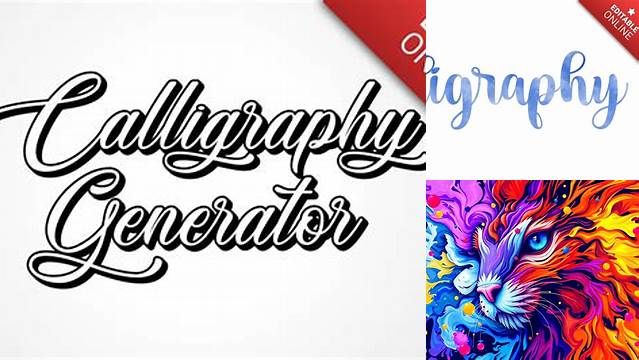
Free AI Calligraphy Font Generators: Your Guide
AI Calligraphy Font Generator Free: Unleash Your Inner Artist
Hey guys, are you ready to dive into the awesome world of AI calligraphy font generators? If you're anything like me, you probably love the elegance and artistry of calligraphy but maybe lack the skills or time to master it. Well, guess what? We're in luck! With the magic of artificial intelligence, you can now create stunning calligraphy fonts without years of practice. And the best part? There are some fantastic AI calligraphy font generators available for free! This guide will explore these tools, show you how to use them, and give you some tips to create truly unique and personalized fonts. We will cover a lot of things. We are talking about everything from the core concepts behind these tools to how to use them and also the best free options out there and how to generate the perfect font! Let's get started, shall we?
So, what exactly is an AI calligraphy font generator? Basically, it's a software program that uses artificial intelligence to design and generate calligraphy fonts. These programs are trained on vast datasets of existing calligraphy styles, allowing them to understand the nuances of different scripts and reproduce them in new and exciting ways. You provide the input – a word, a phrase, or even just a few letters – and the AI generates a font based on your specifications. It's like having a digital calligraphy artist at your fingertips! The level of customization varies, but many generators allow you to adjust parameters like stroke thickness, letter spacing, and style, giving you complete control over the final result. These are perfect for both beginners and seasoned designers, so don't be scared to try them. The possibilities are endless. You can create fonts for your personal projects, design unique logos, or even use them for commercial purposes. It's all about unleashing your creativity and exploring the potential of this amazing technology. This is a game changer, you guys!
One of the coolest things about AI calligraphy font generators is how accessible they are. Unlike traditional calligraphy, which requires specialized tools and a significant time commitment to develop the skills, these tools are user-friendly and don't require any prior experience. Most of them have intuitive interfaces, and the generation process is usually just a matter of entering text, selecting a style, and adjusting a few settings. This means anyone can start creating beautiful calligraphy fonts, regardless of their artistic background. Imagine being able to design custom fonts for your social media posts, invitations, or website without spending hours learning calligraphy techniques. Plus, the free options provide a great starting point for experimentation. You can try out different styles, experiment with various parameters, and see what kind of fonts you can create without spending a dime. This is perfect for anyone on a budget or simply curious about exploring the world of AI-generated calligraphy. It's all about playing around and having fun, so don't be afraid to make mistakes. In fact, some of the best fonts come from experimenting and breaking the rules! Trust me, you'll be surprised at what you can create.
How to Use an AI Calligraphy Font Generator
Alright, let's get down to brass tacks – how do you actually use these amazing AI calligraphy font generators? The process is generally pretty straightforward, but let's break it down step-by-step to make sure you're set up for success. First things first, you'll need to find a generator. A quick search online will turn up a variety of free options, which we'll explore in more detail later. Once you've chosen a generator, the first step is usually to enter the text you want to convert into a calligraphy font. This could be a single word, a phrase, or even just a few letters. After you've entered your text, you'll usually have the option to select a style. Most generators offer a range of pre-defined styles, such as modern, classic, elegant, or handwritten. Choose the style that best suits your needs and preferences. Next comes the fun part: customization! Many generators allow you to adjust various parameters to fine-tune your font. You might be able to adjust the stroke thickness, letter spacing, slant, or even add ligatures (joined letters) and flourishes. Experiment with these settings to see how they affect the final result. Finally, once you're happy with your font, you'll be able to download it in a usable format, such as TTF or OTF. These formats can be installed on your computer and used in most design software, such as Adobe Photoshop, Illustrator, or even Microsoft Word. So, there you have it – the basic steps to generating your own calligraphy font using AI. It's that easy! Let's dive a little deeper.
Now, let's get into the nitty-gritty. Each generator might have its own specific interface and features, so it's important to explore the different options available to you. Many generators offer previews that allow you to see how your font will look before you download it. Take advantage of these previews to experiment with different styles and settings. This will help you get a better sense of what works best for your needs. Don't be afraid to play around with the different parameters! Some generators offer advanced customization options, allowing you to tweak things like the contrast between thick and thin strokes or the overall weight of the font. These advanced options can give you even more control over the final result, but they might also require a bit more experimentation. Another important thing to keep in mind is the licensing terms of the fonts you generate. Some free generators may allow you to use the fonts for personal projects only, while others may also allow for commercial use. Be sure to read the licensing terms carefully before using your fonts for any commercial purposes. This will help you avoid any legal issues down the road. By taking these extra steps, you'll be well on your way to creating amazing calligraphy fonts that will blow your mind. I'm excited for you guys! Remember, practice makes perfect!
Top Free AI Calligraphy Font Generators
Okay, let's get down to the good stuff: the best free AI calligraphy font generators out there! I've done the research, so you don't have to. Here are some of the top options, along with some of their key features and benefits. First up, we have [Insert Name of Generator 1]. This generator is known for its user-friendly interface and wide range of customization options. It allows you to generate fonts in various styles, from classic to modern, and offers a great degree of control over the appearance of your fonts. Key features include adjustable stroke thickness, letter spacing, and the ability to add flourishes. Best of all, it's completely free to use! Next on the list is [Insert Name of Generator 2]. This generator stands out for its advanced AI algorithms, which produce incredibly realistic and authentic calligraphy fonts. It offers a slightly different approach to customization. The ability to fine-tune the appearance of your fonts is mind-blowing! You can control various aspects like the contrast between thick and thin strokes. Just like the others, it is free to use! Lastly, we have [Insert Name of Generator 3]. This one's a hidden gem, often overlooked but packed with amazing features. It is also simple to use, with a focus on ease of use. It's great for beginners. It lets you generate fonts in several styles and formats, making it a versatile option for a wide range of projects. The best part? It's completely free! I encourage you guys to check them out! It will be worth it!
When choosing a free AI calligraphy font generator, there are a few things to consider. First, think about the range of styles it offers. Does it have the specific style you're looking for, or does it allow you to customize the style to match your vision? Also, consider the level of customization available. Does the generator allow you to adjust the stroke thickness, letter spacing, and other parameters to fine-tune your font? Finally, consider the licensing terms. Does the generator allow you to use the fonts for personal projects only, or does it also allow for commercial use? By keeping these factors in mind, you can choose the best free AI calligraphy font generator for your needs. Don't be afraid to try out several different generators before deciding which one is the best fit for you. Each generator has its own strengths and weaknesses, so it's worth exploring a few options to see which one produces the best results for your specific project. It's like trying on different hats until you find the perfect one! Don't get discouraged if your first font isn't perfect. Creating beautiful calligraphy fonts with AI is a skill that improves with practice. The more you experiment with different generators and settings, the better you'll become. I know you can do it! I believe in you guys!
Tips for Creating Unique Calligraphy Fonts
Now that you know about the tools, let's talk about how to use them to create truly unique and eye-catching calligraphy fonts. The key is to think beyond the basic settings and experiment with different ideas. Try combining different styles. For instance, you could start with a classic script and then incorporate modern elements like bold strokes or unconventional letterforms. This can create a unique contrast that grabs attention. Vary the stroke thickness. Don't be afraid to experiment with different stroke thicknesses, making some strokes thicker and others thinner. This can add visual interest and depth to your font. Play with letter spacing. Adjust the letter spacing to create a font that is either tightly packed or more open and airy. This can dramatically change the overall look and feel of your font. Add flourishes and embellishments. Many generators allow you to add flourishes, swashes, and other embellishments to your font. These can add a touch of elegance and personality to your design. Use your own handwriting as inspiration. Consider scanning your own handwriting and using it as a starting point for your AI-generated font. This can give your font a personal touch and make it truly unique. These are just a few ideas to get you started, so the possibilities are endless!
When creating unique calligraphy fonts, remember to consider the purpose of your font. What is the font going to be used for? Is it for a logo, invitation, or website? Understanding the purpose of your font will help you choose the right style and customize it to fit your needs. Another important tip is to pay attention to the details. Small details, such as the shape of the serifs or the way the letters connect, can make a big difference in the overall appearance of your font. Don't be afraid to spend some time tweaking these details to create a font that is just right. Moreover, don't be afraid to get creative. Experiment with different colors, textures, and backgrounds to see how your font looks in various contexts. You might be surprised at what you come up with! There's no right or wrong way to create a calligraphy font, so just have fun and let your creativity flow. Remember, the goal is to create a font that is both beautiful and functional. By following these tips, you'll be well on your way to creating stunning calligraphy fonts that will impress everyone.
In conclusion, AI calligraphy font generators are a game-changer for anyone who loves calligraphy but lacks the time or skills to master it. With a plethora of free tools available, you can unleash your inner artist and create stunning, unique fonts in minutes. So go out there, experiment, and have fun creating your own calligraphy fonts. Happy creating, everyone!